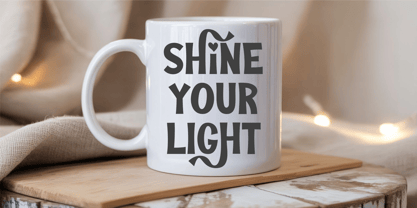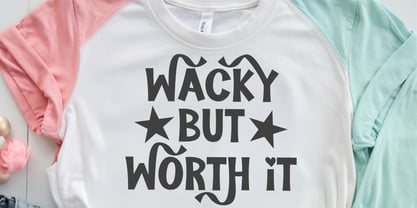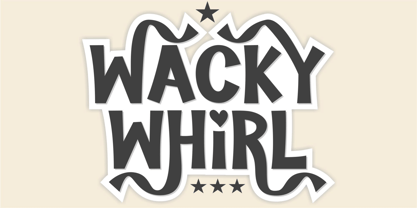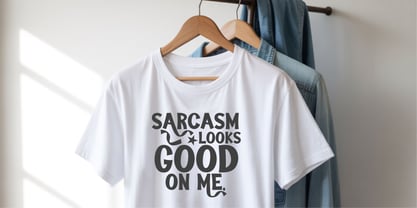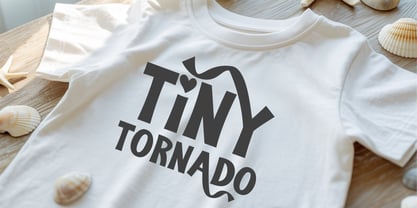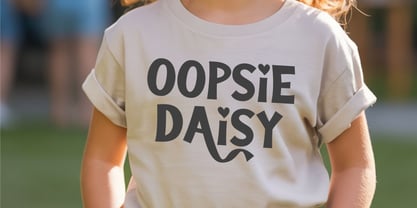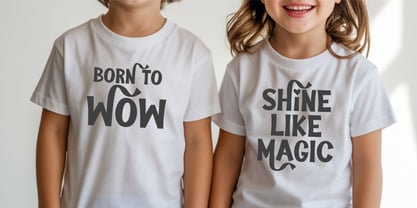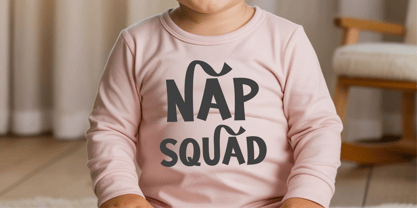
Wacky Whirl
The Wacky Whirl Font Family was designed by Tony Balios and published by Tonis Art Studio. Wacky Whirl contains 1 styles. More about this family
Wacky Whirl is a bold, whimsical handwritten font with a twist of playful chaos and charm. Designed to bring personality to your projects, this font features thick strokes, bouncy letterforms, and twirly swashes that create an energetic, feel-good vibe in every word. The letters don’t just sit on the line—they dance, swirl, and sparkle with fun. Whether you're crafting designs for kids, whipping up snarky quotes for T-shirts, or creating eye-catching social media posts, Wacky Whirl adds a dash of joy and mischief to everything it touches.
Its quirky yet legible style makes it ideal for everything from party invitations and classroom projects to mugs, stickers, nursery prints, and character-driven branding. With alternate glyphs, sparkly extras, and unique heart and swirl details built into the font, Wacky Whirl isn’t just a typeface—it’s a celebration of creativity.
Perfect for makers, designers, and font lovers who crave something fun, fresh, and full of character. If you’re looking to stand out with a little twist and a lot of personality, Wacky Whirl is here to whirl up your world—one quirky letter at a time!